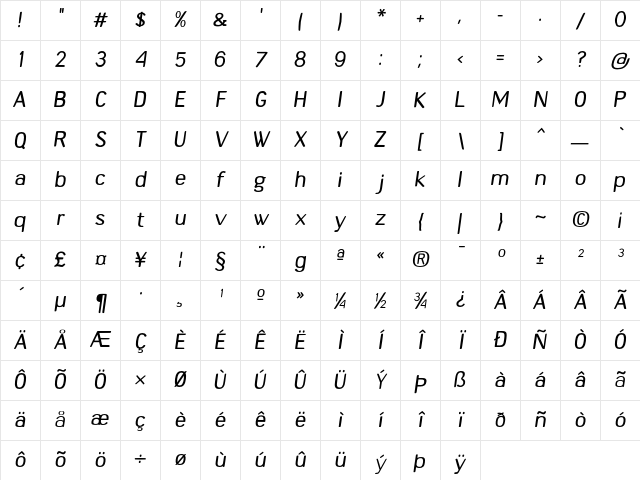
Complete Felthgothic BoldItalic glyph index. Displaying only characters natively supported by Felthgothic BoldItalic font.
Felthgothic takes a clean, functional approach - its unadorned letterforms prioritise legibility and work reliably across screen and print environments. The slanted form adds forward momentum and visual energy. Its bold stroke weight gives it real presence on the page.
Font Pairing: Use Felthgothic for headlines alongside a lighter-weight sans or serif for body copy to establish clear visual hierarchy.
Pro Tip: Use Felthgothic for UI labels, navigation, and short-form body copy where clean legibility is the priority.